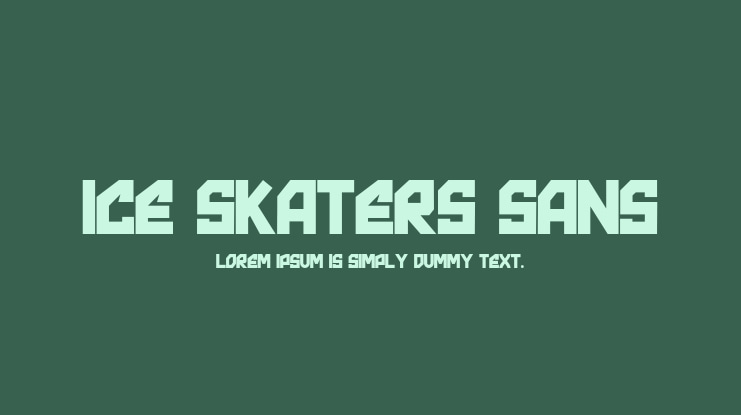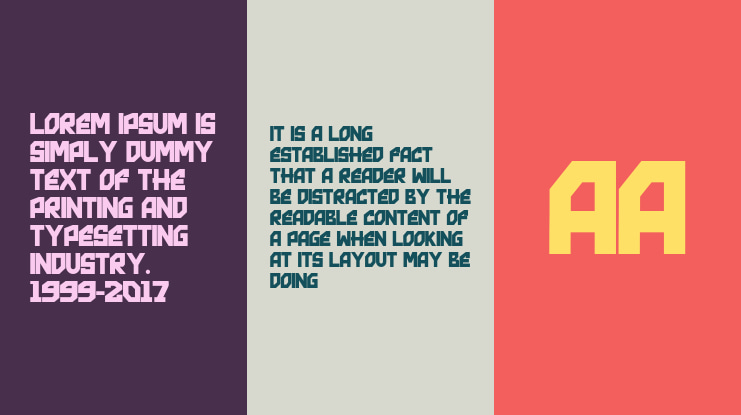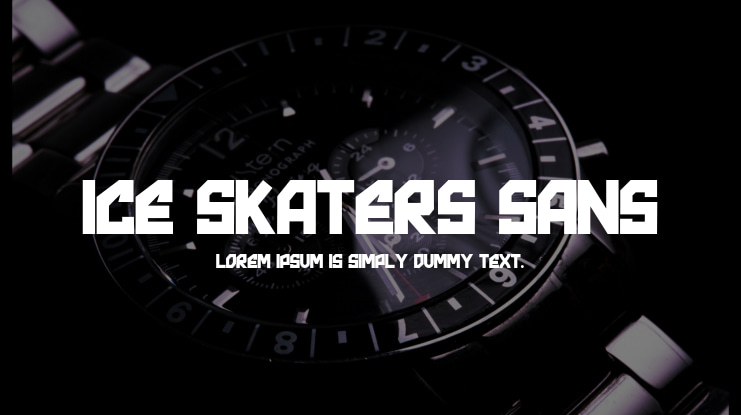
Ice skaters sans Font
This tightly packed sans-serif font is the perfect blend of contemporary aesthetics and streamlined simplicity. Its elegant style and condensed frame bring a vibrant element to any creative endeavor. Discover the refined flexibility of Ice Skater, brilliantly designed to deliver striking statements in confined spaces. This typeface truly stands out, making it a perfect choice for greeting cards, brand identities, packaging, posters, and any design project requiring a dash of stylish modernity. Imbued with a trendy appeal, Ice Skater invites you to creatively engage and augment your design endeavors.